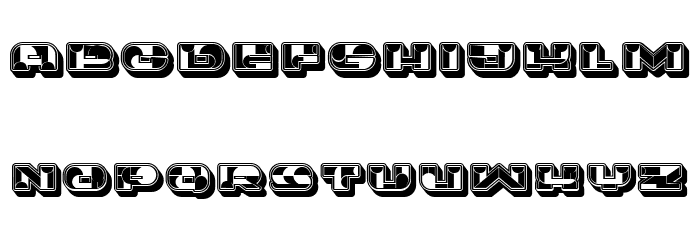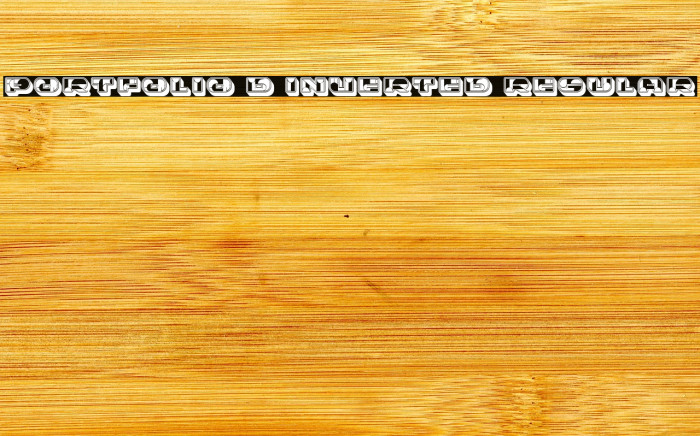
Portfolio 3D Inverted Regular Font
This font features a bold, three-dimensional design with an inverted color scheme that creates a striking visual effect. The characters are blocky and robust, with a strong presence that makes them stand out. The 3D effect is achieved through the use of shadows and highlights, giving each letter a sense of depth and dimension. The style is modern and futuristic, making it ideal for projects that require a bold and eye-catching typeface. The font includes both uppercase and lowercase letters, as well as numbers and a selection of special characters, ensuring versatility for various design needs.
A bold, 3D font with an inverted color scheme and strong visual impact.
- Proposed Projects: Ideal for posters, logos, video game graphics, and any project needing a futuristic, bold typeface.
- Category: Decorative/Display
- Contrast: High